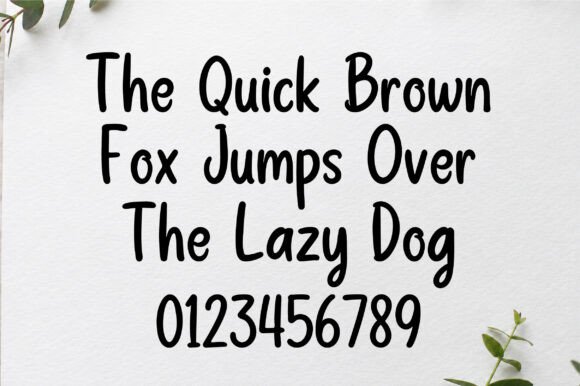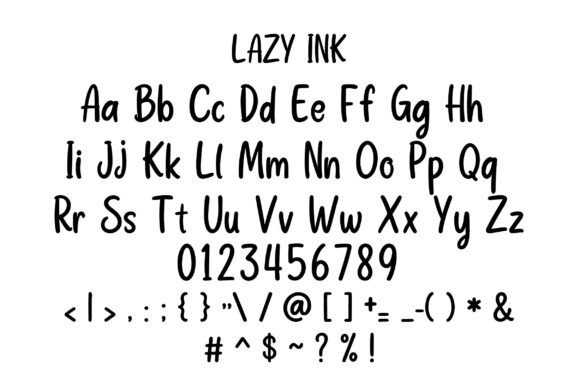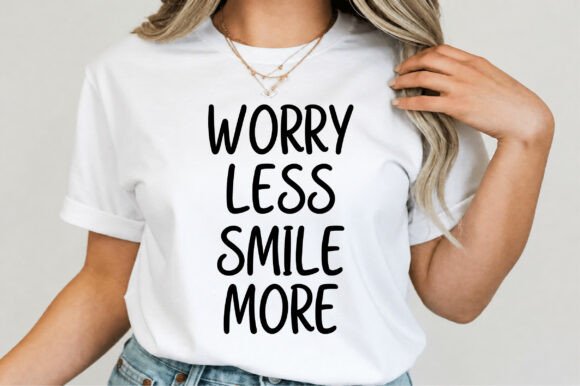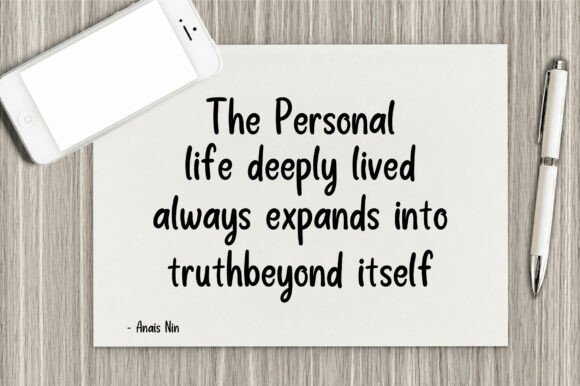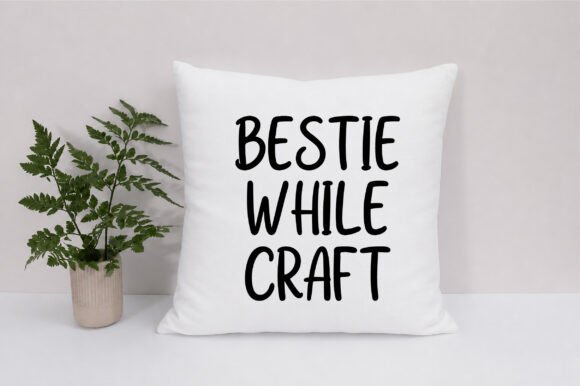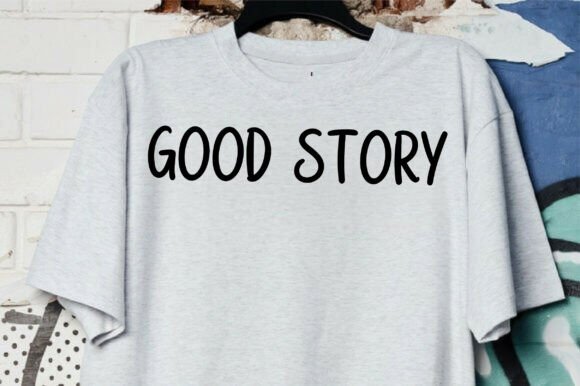
Introduction to Lazy Ink Font
Lazy Ink is a playful handwritten font with a smooth and casual style.
Its tall, clean letters and natural ink-like strokes make it perfect for kids designs, branding, t-shirts, quotes, invitations, social media graphics, Cricut projects, and fun creative crafts This font brings a friendly and cheerful touch to every design while staying easy to read and versatile for both print and digital use.